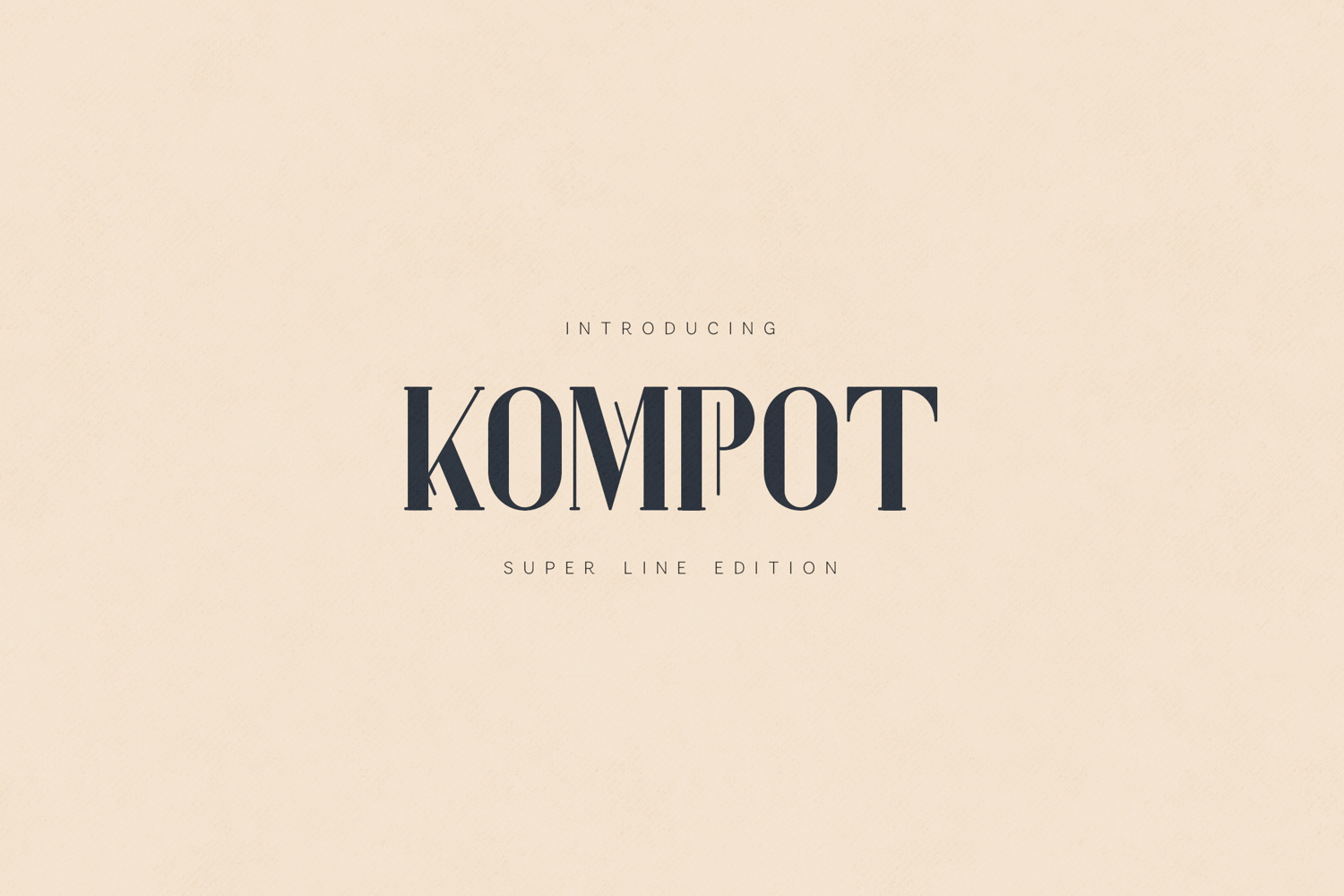
Kompot Elegant Modern Serif Display Font
Kompot is a refined modern serif typeface that blends elegant proportions with distinctive vertical contrast and expressive structural details.
The design features tall, graceful letterforms with subtle line transitions and high contrast between thick and thin strokes. This gives the typeface a sophisticated rhythm and a strong editorial presence.
Kompot’s character comes from its elongated serifs, elegant vertical stress, and refined geometry. These elements create a unique balance between classic serif traditions and contemporary typographic aesthetics.
Designed for impactful typography, Kompot works beautifully in editorial layouts, branding, luxury packaging, and high-end design projects where elegance and personality are essential.
With its stylish structure and multilingual character support, Kompot brings a timeless yet modern voice to any design.
Perfect For• Editorial design
• Luxury branding
• Fashion magazines
• Posters
• Logos
• Packaging
• Headlines
• High-end typography